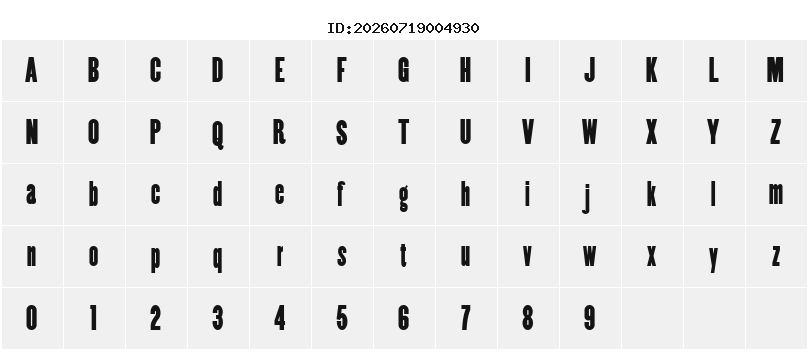
CopperCanyonWBW Preview
• Font Name: CopperCanyonWBW
• Font Style: DemiBold
• Font ID: CopperCanyonWBW DemiBold
• Full Font Name: CopperCanyonWBW DemiBold
About CopperCanyonWBW.ttf
CopperCanyonWBW.ttf is a modern, elegant sans-serif font designed for ultimate readability and visual harmony. Perfect for branding, headlines, web design, and print materials.